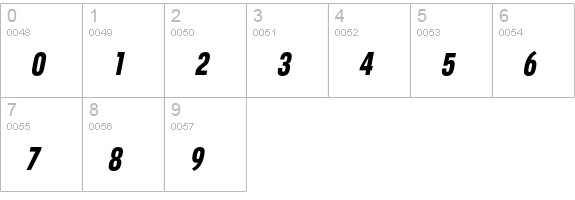
CorpuGotConObl Font Details
CorpuGotConObl font is a striking and modern typeface that exudes elegance and sophistication. Its sleek and stylish design is perfect for a wide range of design projects, from branding to marketing materials. With its unique curves and sharp angles, CorpuGotConObl font adds a touch of contemporary flair to any text. What sets CorpuGotConObl font apart is not just its stunning aesthetics, but also its versatility. Whether you're creating a logo, designing a website, or crafting a poster, this font will elevate your project and make a lasting impression. Best of all, CorpuGotConObl font is free to download at FontsMarket.com. Now you can access this premium font without breaking the bank. Don't miss out on this opportunity to enhance your designs with the sleek and stylish CorpuGotConObl font.